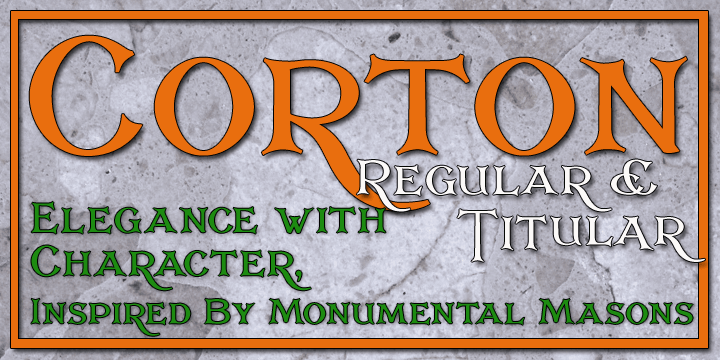
Corton is a historical and western font family. This typeface has eight styles and was published by Greater Albion Typefounders.
Corton was inspired by the traditional lettering on a gravestone in an English village. While that might sound a rather solemn beginning, Corton has wonderfully lively air, with distinctive lively serifs and beautifully swashed downstrokes. Two faces are offered-regular and titular. Between them they are ideal signage and display faces, merging ‘olde-worlde’ charm and fun character.